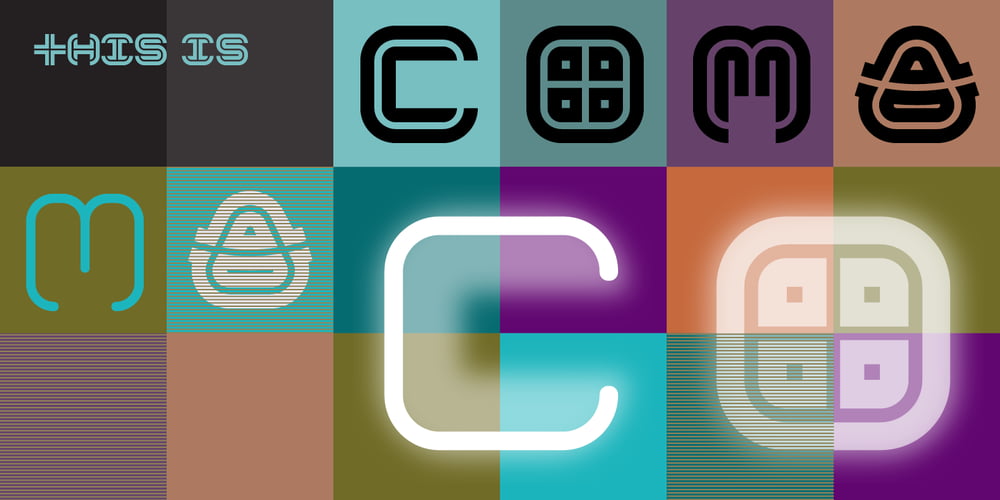
Coma Font Family was designed by Marcus Leis Allion, Jonathan Barnbrook and published by Barnbrook Fonts. Coma contains 2 styles and family package options. In its original form Coma was designed for use alongside Japanese typography. The uniform shape of Coma’s letterforms allow it to be set horizontally or vertically with equal ease. With a striking profile, modular form and contemporary character, Coma can be used in myriad configurations. The name Coma refers to the perplexity of contemporary existence, to be assaulted by an endless stream of news and stimuli, and to feel paralysed and exhausted by it all.